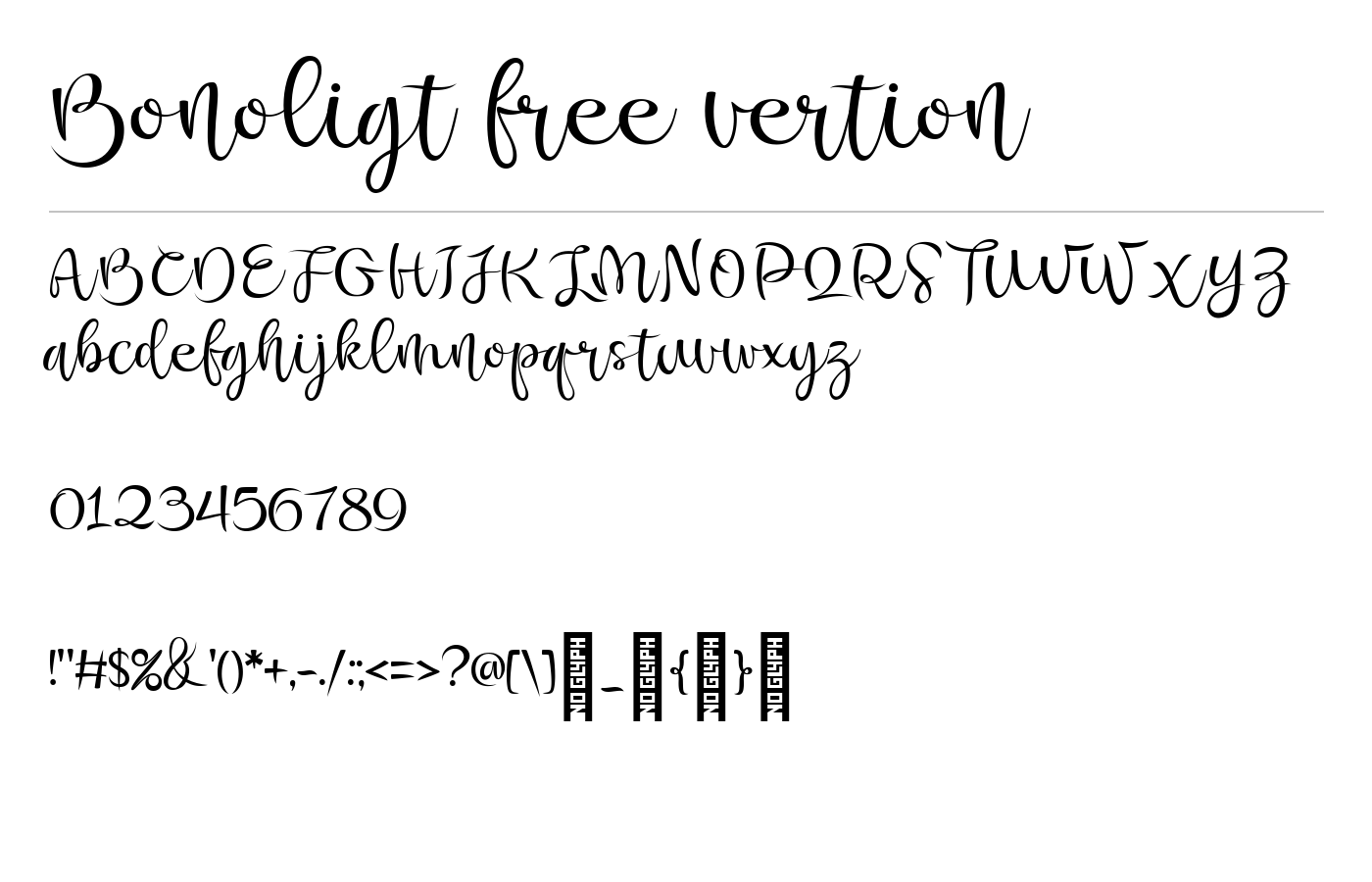
Bonoligt free vertion is a delicate script font with a handwritten feel, featuring slender strokes and elegant curves that add a charming, personal touch. Its moderate contrast and smooth, narrow letterforms make it an excellent choice for invitations, branding, and creative projects seeking a warm, friendly, yet stylish appearance. This font works beautifully in headlines and decorative text where a graceful and approachable mood is desired.
Bonoligt free vertion Font
About Bonoligt free vertion Font